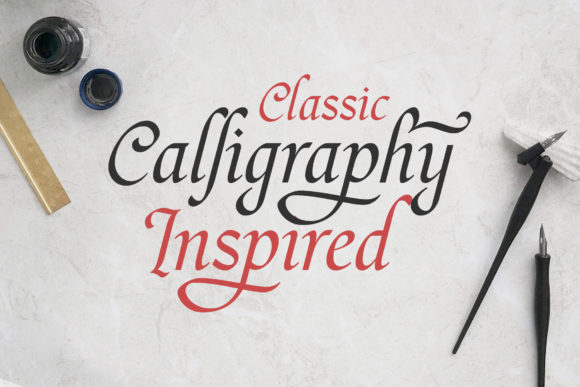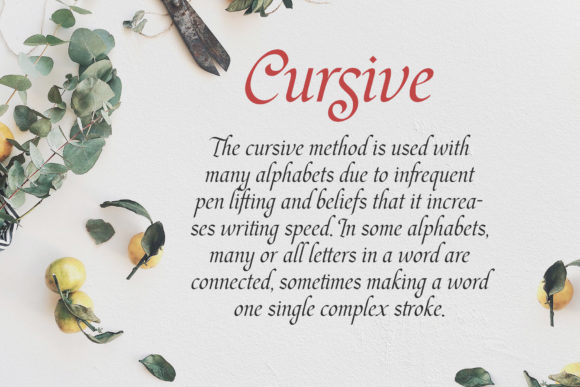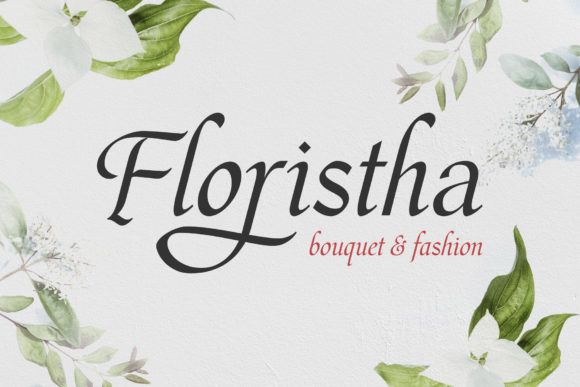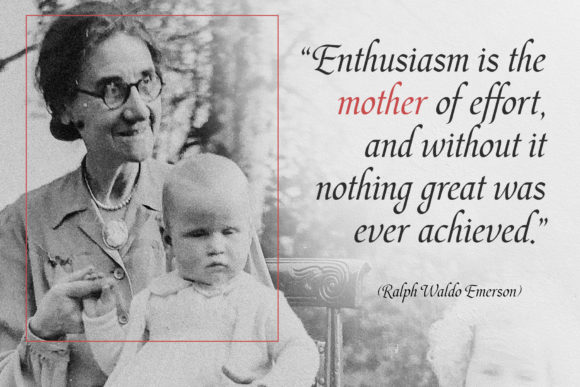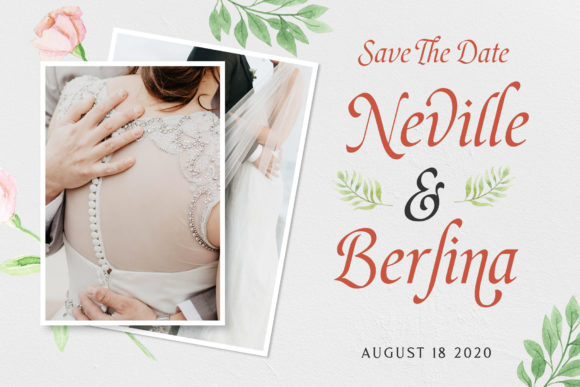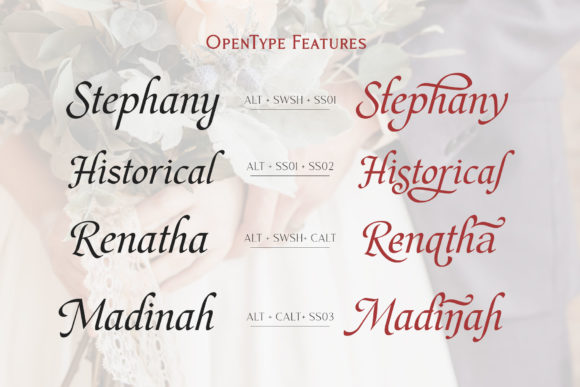
Hargalia Font: The Gorgeously Unique Script to Elevate Your Design Projects
In the world of typography, fonts play a crucial role in making or breaking a design project’s aesthetic appeal. With thousands of fonts available, it can be overwhelming to find the perfect one that stands out from the rest. However, if you’re looking for a script that feels fresh, fun, and uniquely charming, look no further than the Hargalia Font. In this article, we’ll dive into the wonderful world of Hargalia, exploring its features, benefits, and uses, and why it’s a must-have for designers and crafters alike.
What is Hargalia Font?
Hargalia Font is a beautifully crafted script that boasts a gorgeously unique style, making it perfect for designers and crafters seeking to add a touch of personality to their projects. Its fresh and fun vibe is sure to capture the attention of your audience, setting your design apart from the crowd. With Hargalia, you can transform any design project into a true standout, making it an excellent addition to your font collection.
Features of Hargalia Font
So, what makes Hargalia Font so special? Here are some of its notable features:
- Unique Charm: Hargalia’s distinctive style is sure to captivate your audience, adding a touch of whimsy and playfulness to your designs.
- Fresh and Fun: This font’s modern and lively feel makes it perfect for projects that require a youthful and energetic vibe.
- Script Style: Hargalia’s script style is elegant and flowing, making it ideal for use in a variety of design projects, from invitations and greeting cards to branding and advertising.
- Versatile: Whether you’re working on a digital project or a print design, Hargalia Font adapts seamlessly, ensuring your design looks stunning across different mediums.
Benefits of Using Hargalia Font
By incorporating Hargalia Font into your design projects, you’ll enjoy several benefits, including:
- Instant Recognition: Hargalia’s unique style ensures your design stands out, grabbing the attention of your audience and making your project more memorable.
- Emotional Connection: The font’s fresh and fun vibe helps create an emotional connection with your audience, making your design more relatable and engaging.
- Time-Saving: With Hargalia, you can quickly and easily add a professional touch to your designs, saving you time and effort in the creative process.
- Endless Possibilities: Hargalia’s versatility means you can use it in a wide range of design projects, from creative crafts to commercial branding.
Who Can Benefit from Hargalia Font?
Hargalia Font is perfect for:
- Graphic Designers: Add a unique touch to your branding, advertising, and marketing materials with Hargalia’s distinctive style.
- Crafters: Use Hargalia to create beautiful handmade cards, invitations, and other paper crafts that showcase your creativity.
- Small Business Owners: Elevate your brand’s visual identity with Hargalia, making your business stand out in a crowded market.
- DIY Enthusiasts: Bring a personal touch to your DIY projects, such as party decorations, signs, and other creative endeavors.
In conclusion, Hargalia Font is a gorgeously unique script that can instantly elevate your design projects with its fresh, fun, and charming style. Whether you’re a designer, crafter, or small business owner, Hargalia offers a world of creative possibilities, making it an excellent addition to your font collection. So, fall in love with Hargalia’s unique charm and turn your design projects into true standouts!